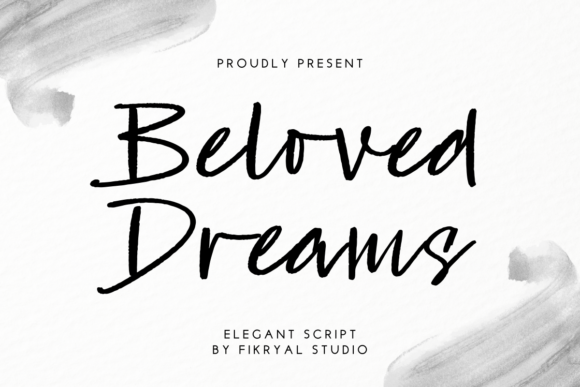
Unleashing the Beauty of Handwritten Style
There’s something magical about the first draft of a design concept, when the ideas are fresh and the possibilities are endless. As a designer, you know that moment when everything clicks, and the project starts to take shape. For many of us, it’s the perfect blend of creativity and technical skill that sets the tone for a successful project.
That’s where the Beloved Dreams Font comes in – a beautiful, elegant script font that adds a touch of classic charm to any design. Whether you’re creating invitations, greeting cards, or branding materials, Beloved Dreams Font is the perfect choice to elevate your work. Its unique blend of traditional and modern elements makes it a valuable asset for designers looking to create stunning visuals.
Beloved Dreams Font Key Features
- Unique Characteristics: Elegant, cursive script with a mix of modern and vintage elements, perfect for creating a unique and romantic atmosphere.
Designer Review: Beloved Dreams Font
At first glance, Beloved Dreams Font seems like a whimsical addition to any design project. ✨ Its dreamy, cursive script immediately evokes a sense of romance and nostalgia. The font’s soft, flowing lines and subtle flourishes make it perfect for titles, quotes, or any text that requires a touch of elegance.
- ✨ Works well for: titles, quotes, and any text that requires a touch of elegance
- ✨ Suitable for: romance-themed projects, wedding invitations, and children’s books
- ✨ Offers a unique, hand-drawn feel that adds character to any design
However, there are some limitations to consider. ⚠️ The font can be challenging to read at smaller sizes, which may affect its usability in certain contexts. Additionally, the script’s flowing lines can make it difficult to pair with sans-serif fonts, as it may clash with the clean lines and geometric shapes of those fonts.
- ⚠️ Difficult to read at smaller sizes
- ⚠️ Can clash with sans-serif fonts due to its flowing lines and geometric shapes
- ⚠️ May not be suitable for projects that require a high level of legibility
Overall, Beloved Dreams Font is a beautiful, unique addition to any design project. While it may have some limitations, its charm and elegance make it well worth considering for the right project.
Tips for Getting the Most Out of Beloved Dreams Font
For optimal results, use the Beloved Dreams Font in designs that require a whimsical and romantic feel.
Experiment with different font sizes, colors, and combinations to create a unique look.
Use the font in conjunction with other design elements, such as graphics and textures, to add depth and interest to your designs.
The Beloved Dreams Font is ideal for:
- Birthday and anniversary cards Alternative Font Options for Designers
Pacifico is a beautiful, elegant script font perfect for creating a sophisticated and luxurious feel. It’s ideal for use in wedding invitations, branding, and other high-end design projects.
Compared to Beloved Dreams Font, Pacifico has a more refined and polished look, making it suitable for formal events and high-end branding.